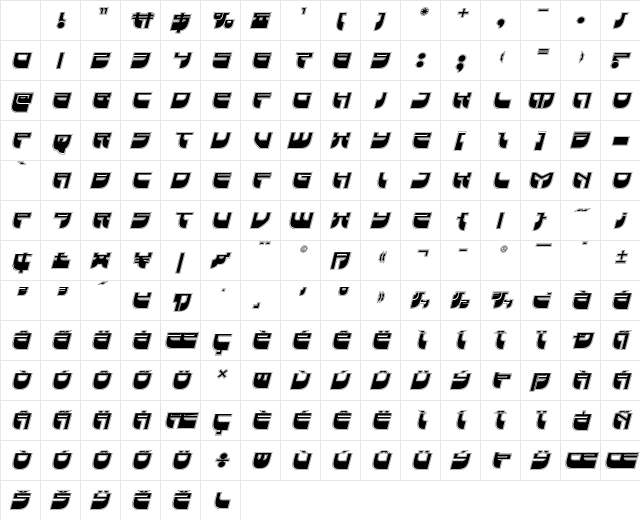
Complete Vertical Horizon Academy Ital Italic glyph index. Displaying only characters natively supported by Vertical Horizon Academy Ital Italic font.
Vertical Horizon Academy Ital is a composed and adaptable typeface that performs quietly and consistently across a wide range of design contexts. The slanted form adds forward momentum and visual energy.